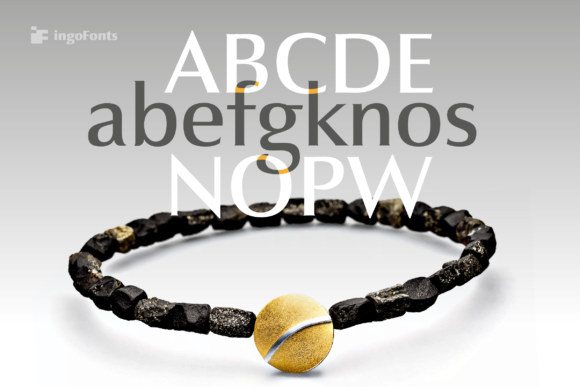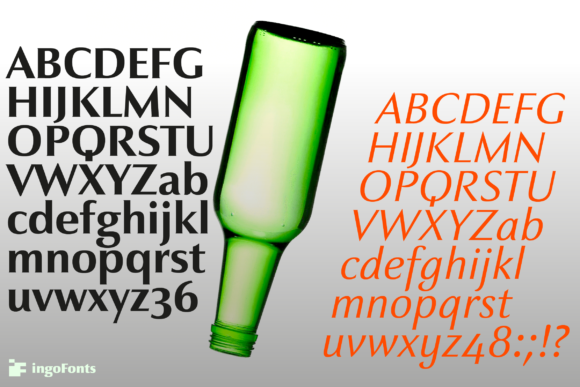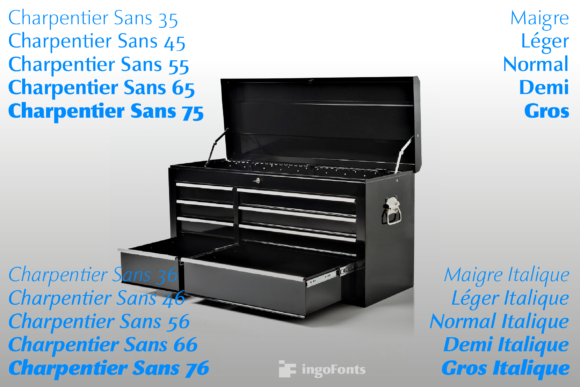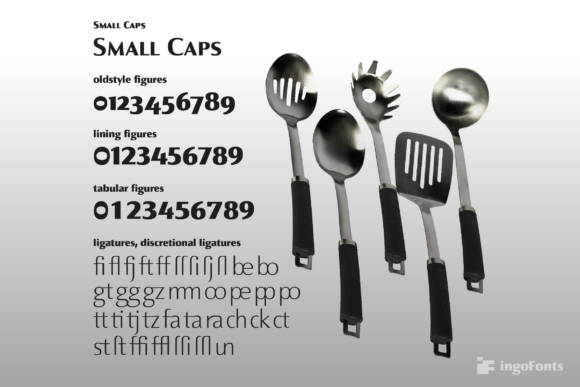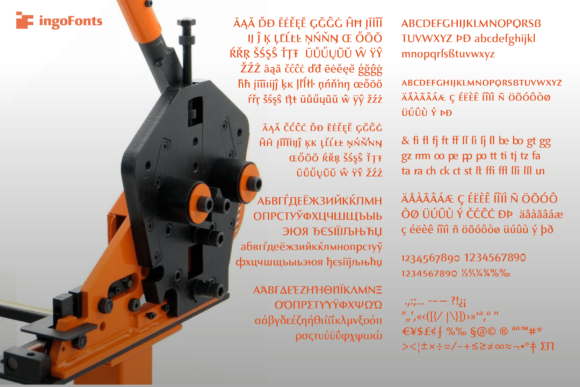
The Perfect Blend of Classic and Contemporary Design
Have you ever found yourself staring at a blank page, struggling to bring your creative vision to life? We’ve all been there – the blank slate, the endless possibilities, and the nagging feeling that you’re missing the perfect tool to set your design apart. For designers seeking a timeless and versatile font, the search often ends with Charpentier Sans Pro Font, a classic sans serif font that has captured the hearts of creatives around the world.
This elegant font is more than just a pretty face – it’s a trusted companion for designers looking to craft compelling visual narratives. Whether you’re working on a high-end branding project or a simple yet effective web design, Charpentier Sans Pro Font is the perfect choice to add a touch of sophistication and polish to your work. Its clean lines, precise typography, and refined aesthetic make it an invaluable asset for any designer looking to elevate their craft.
Charpentier Sans Pro Font Key Features
- Font Family: Charpentier Sans Pro, a sans-serif typeface designed for digital use.
- Character Set: Supports a wide range of languages, including Latin, Cyrillic, and Greek alphabets, with over 600 glyphs.
- Unique Characteristics: Charpentier Sans Pro features a clean, modern design with subtle rounded edges and a high x-height, making it suitable for digital interfaces, signage, and corporate branding.
- Font Weight and Style: Available in 7 weights (Thin, Light, Regular, Medium, Bold, Heavy, Black) and 3 styles (Regular, Italic, Bold Italic) for added flexibility.
Charpentier Sans Pro Font Review
Overall, I think Charpentier Sans Pro is a solid choice for designers looking for a clean, sans-serif font. Here’s what I like about it:
- ✨ The font has a great balance between modernity and legibility. It’s easy to read, even at smaller sizes.
- ✨ The font family includes a wide range of weights, from Light to Black, making it versatile for various design applications.
- ✨ The font’s geometric shapes and clean lines give it a modern feel that’s perfect for contemporary design projects.
- ⚠️ The font may not be as distinctive or memorable as some other sans-serif fonts on the market.
- ⚠️ Some users may find the font’s geometric shapes a bit too rigid or cold, which can affect its emotional impact.
- ⚠️ The font’s width may not be ideal for certain design applications, such as titles or headings, where a more condensed font may be preferred.
Overall, I think Charpentier Sans Pro is a great choice for designers who want a clean, modern sans-serif font with good legibility. While it may not be the most distinctive or memorable font, it’s a solid choice for a wide range of design applications.
Charpentier Sans Pro is a versatile font suitable for a variety of projects, including:
1. Corporate branding and marketing materials.
2. Editorial design and publications.
3. Digital products and interfaces.
For optimal results, use Charpentier Sans Pro with a clear and concise message, and pay attention to font size and line spacing to ensure readability.
What font sizes and styles are available in Charpentier Sans Pro?
Charpentier Sans Pro includes a range of font sizes and styles, including Thin, Light, Regular, Medium, Bold, and Black. This allows for flexibility in designing typography for various applications, from body text to headlines and titles.